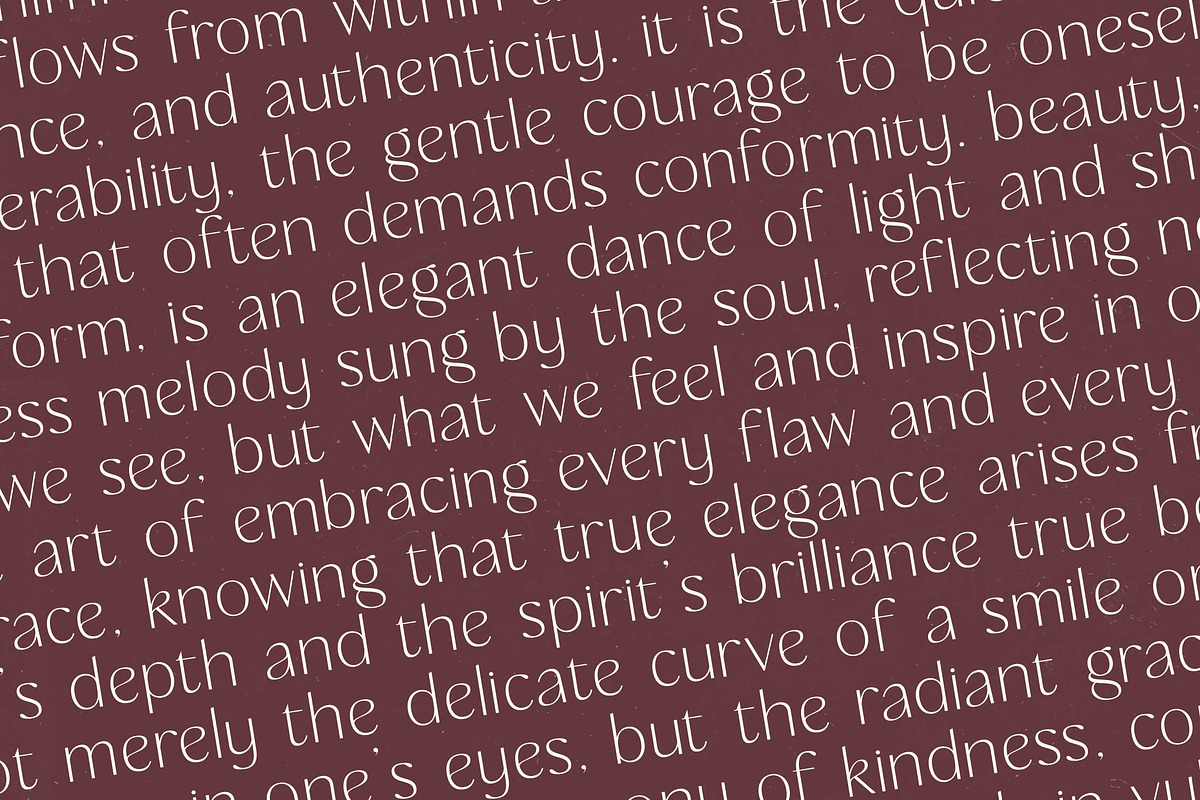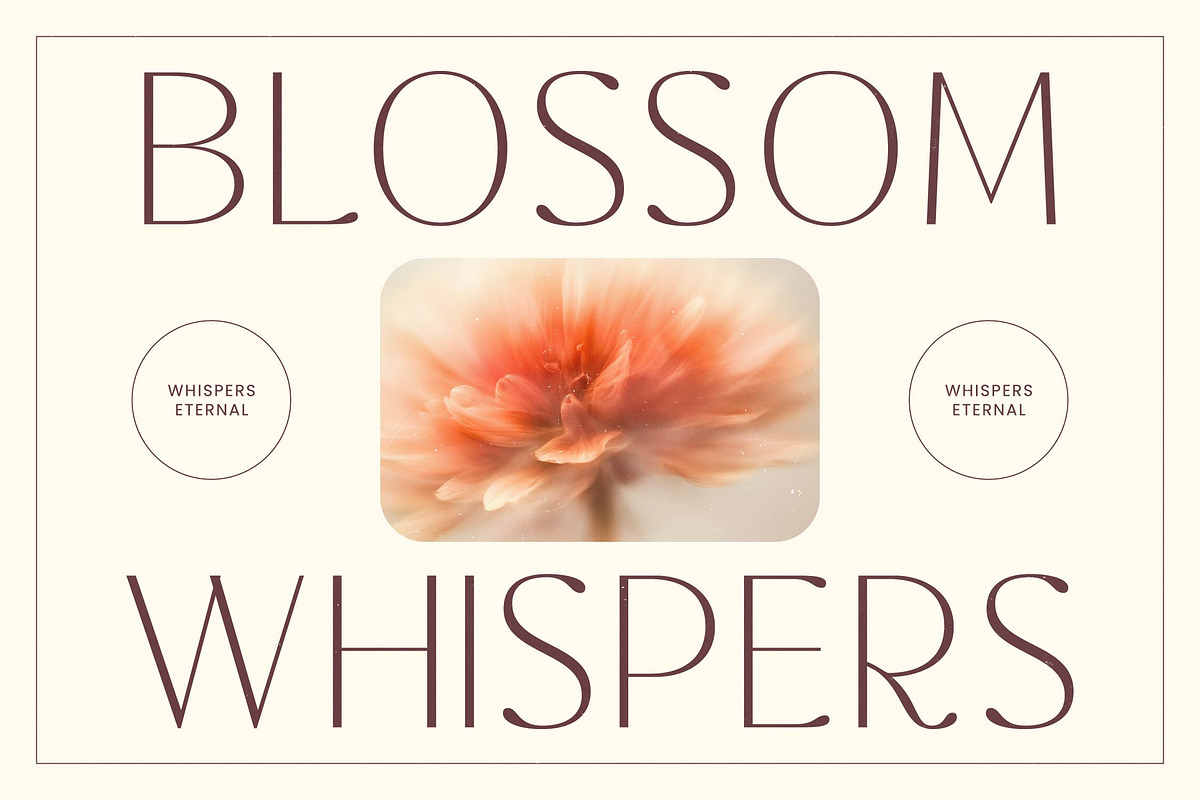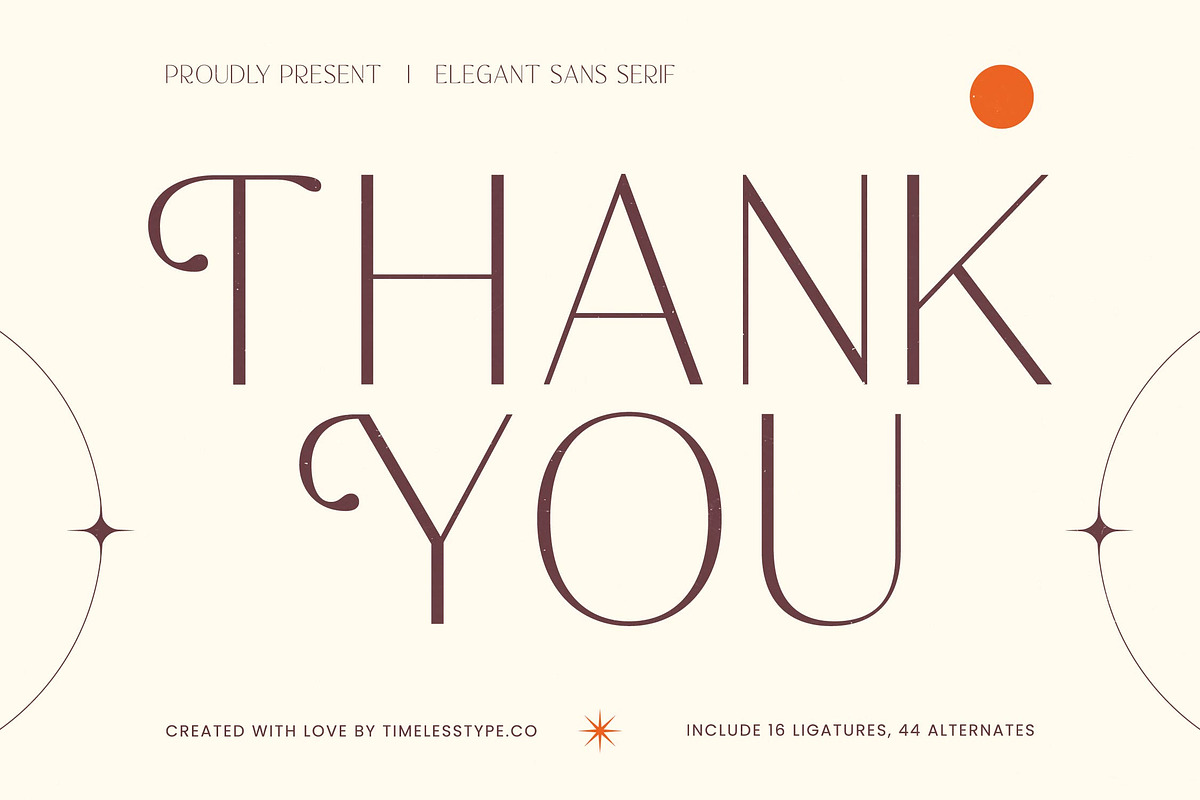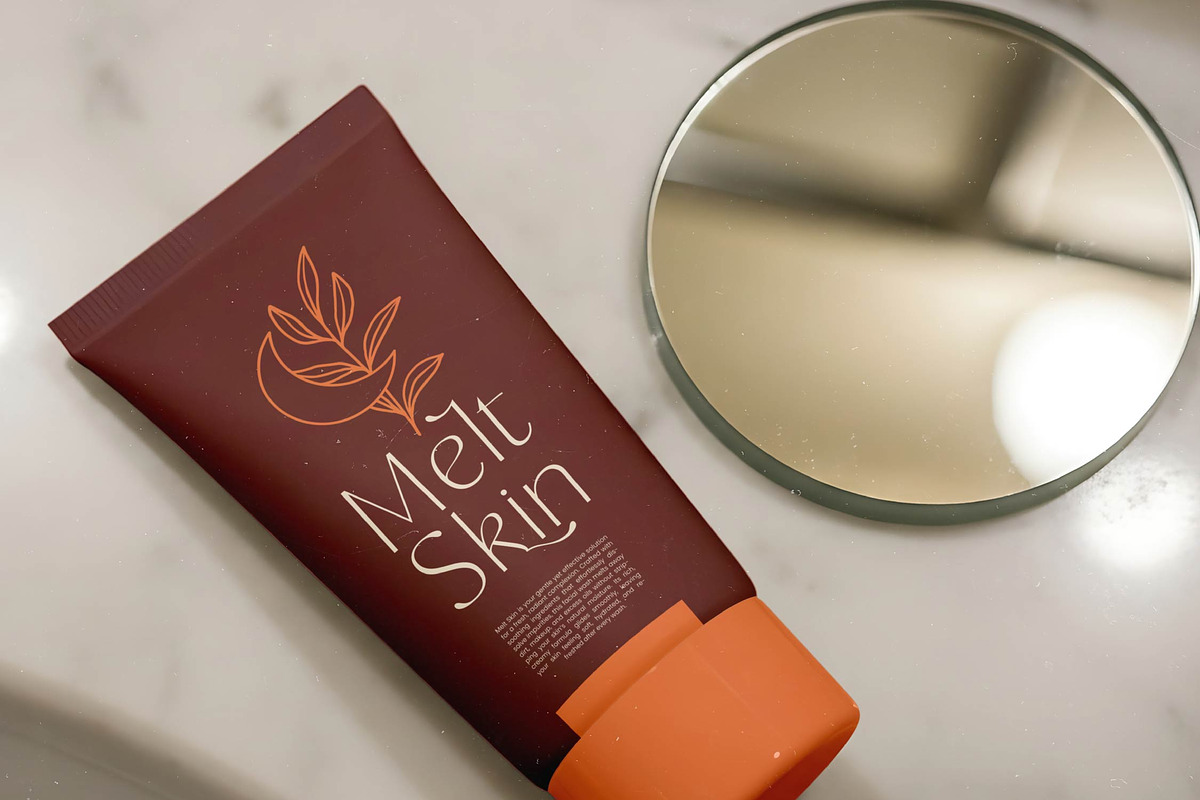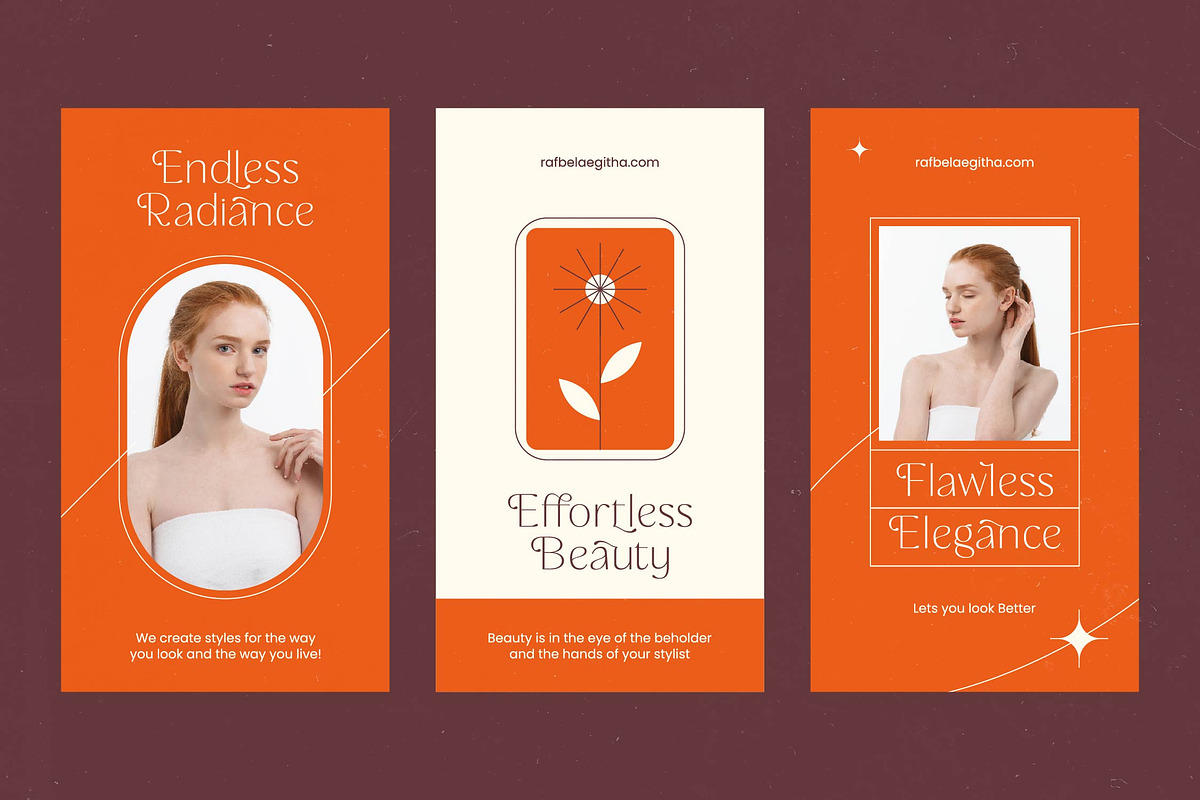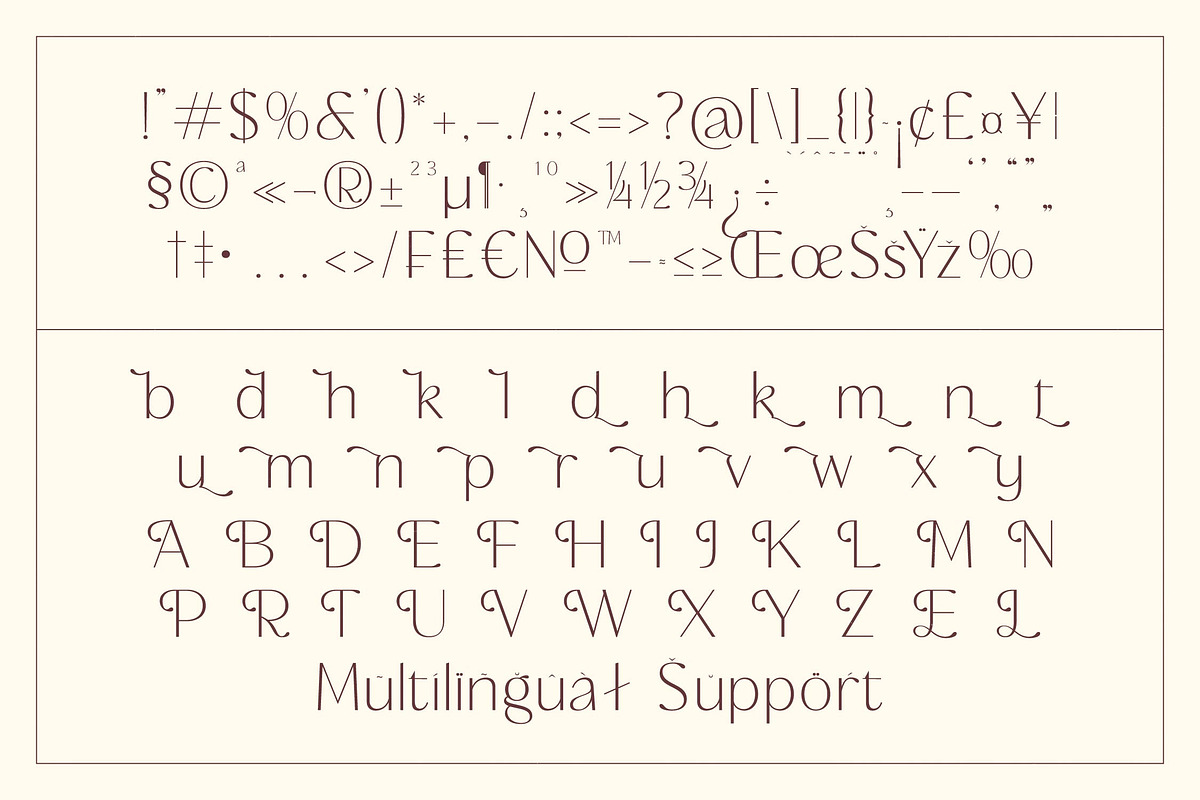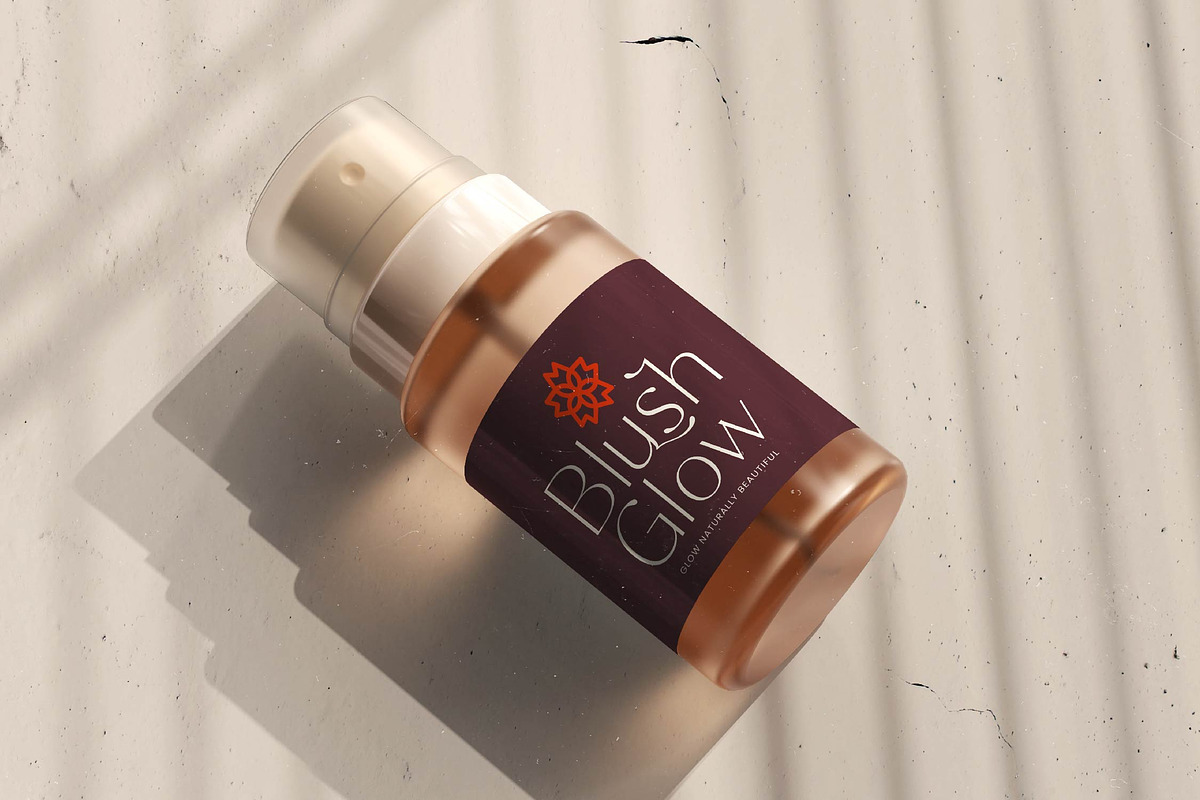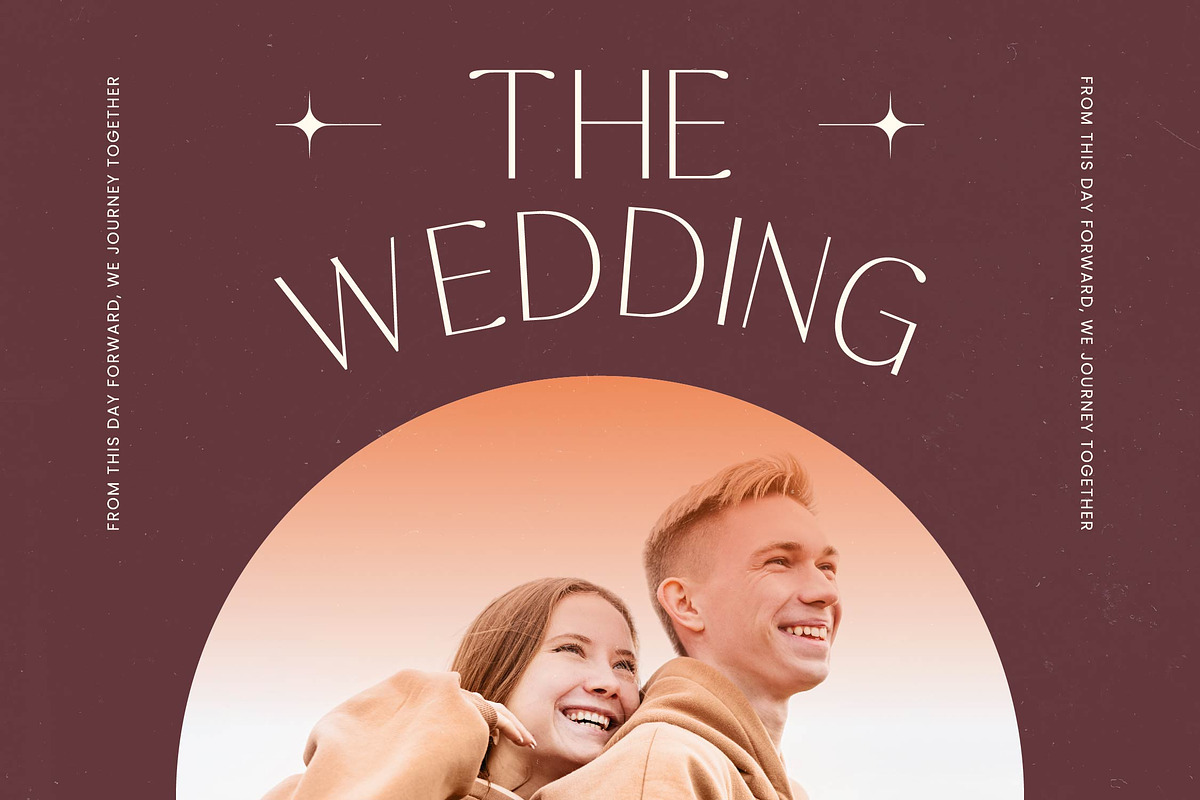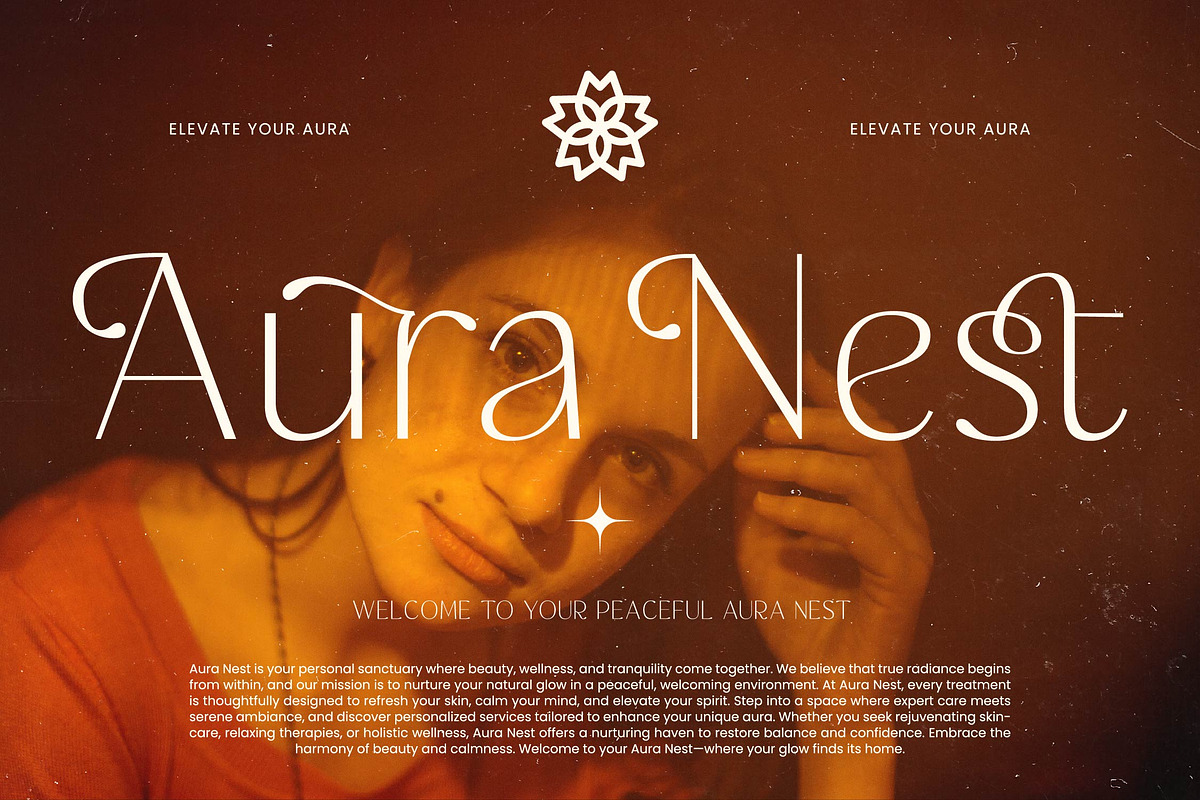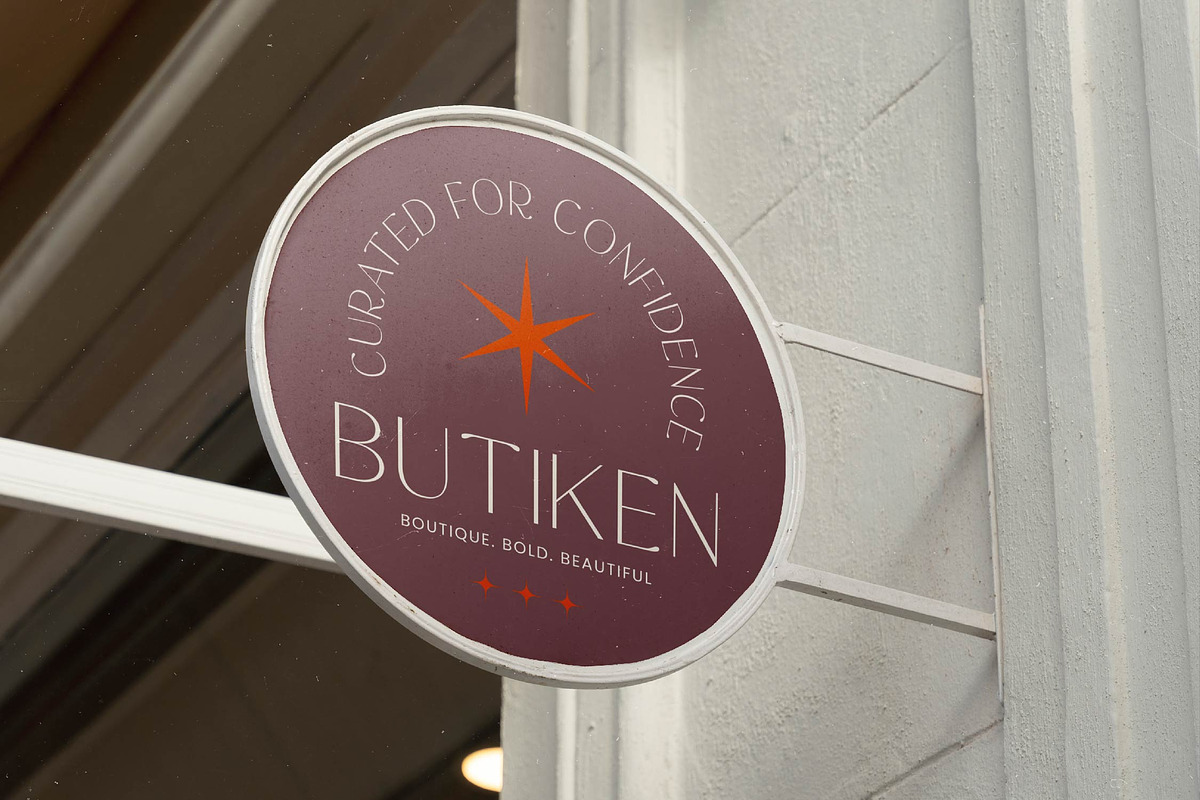
Rafbela Egitha Elegant Sans Serif
Elevate your creative vision with the ethereal beauty of Rafbela Egitha, a typeface designed to dance across the page with unparalleled grace. This font captures the essence of sophisticated minimalism while offering a touch of poetic movement that transforms standard text into a work of art.
Inspired by the delicate interplay of light and shadow in high-fashion editorials, this typeface draws from the classic lines of mid-century modernism infused with a contemporary twist. It evokes the feeling of a sun-drenched atelier where every curve and line is meticulously crafted to evoke a sense of timeless wonder.
With its striking silhouettes and refined geometry, this modern serif display choice brings a sense of luxury typography to any project requiring a delicate touch. The high-contrast serif elements ensure a sharp, clean look while the editorial font style provides a unique branding impact that resonates with high-end audiences.
Perfectly aligned with the current modern serif trend, this typeface meets the demand for editorial display fonts that feel both nostalgic and futuristic. It is a prime example of character-driven typography that breaks away from generic styles to offer something truly memorable and distinct in a saturated market.
This versatile typeface is the ultimate solution for logo design and high-concept branding identities that require a signature look. From upscale editorial layouts and luxury packaging to romantic wedding stationery and high-end fashion lookbooks, it adapts seamlessly to diverse creative environments.
Unlock a world of creative possibilities with a comprehensive set of 16 ligatures and 44 unique alternates that allow for deep customization. The font also includes decorative swashes and full multilingual support with international characters to ensure your message reaches a global audience with style.
- Ligature 16 Alternate 44